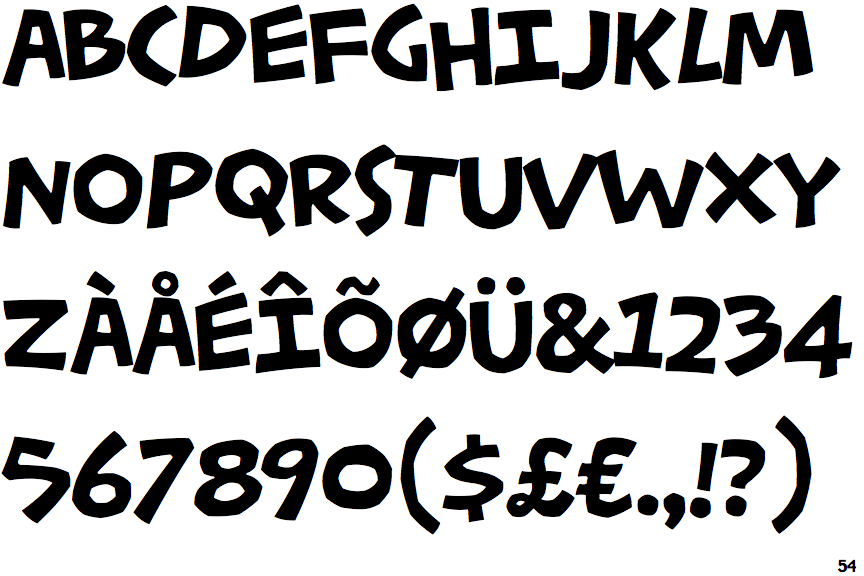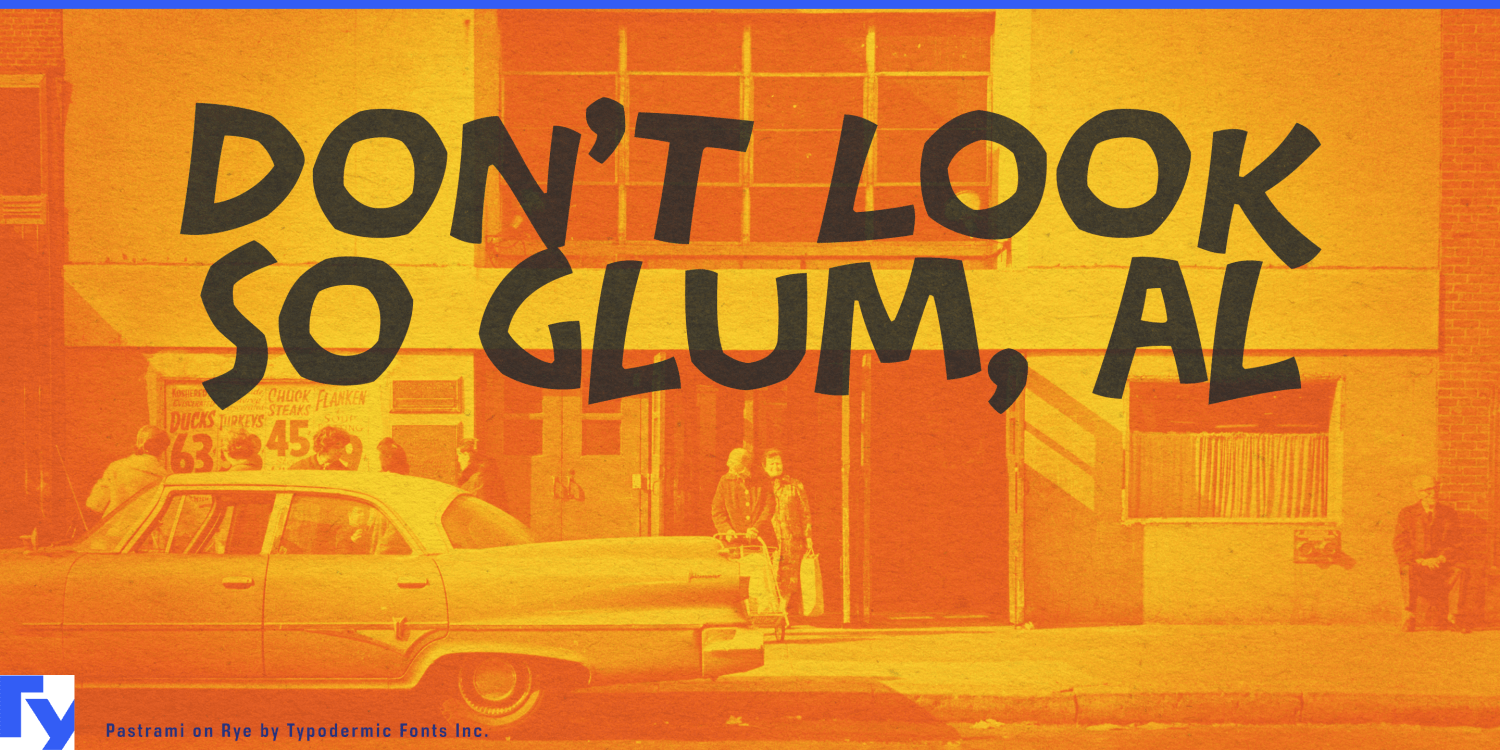
Pastrami On Rye Font . Pastrami on rye font familie wurde entworfen von ray larabie und herausgegeben von typodermic. The pastramion rye regular font was designed by ray larabie. Information about the font pastrami on rye from typodermic, and where to download it. Thousands of designers (famous or not) use the image font detection system to find a font or similar free fonts from an image. Pastrami on rye is a comic and kids font published by typodermic fonts inc. The author works at company ray larabie. Pastrami on rye otf (400) by typodermic. Pastrami on rye enthält 1 stile.
The author works at company ray larabie. Pastrami on rye enthält 1 stile. Information about the font pastrami on rye from typodermic, and where to download it. Pastrami on rye is a comic and kids font published by typodermic fonts inc. The pastramion rye regular font was designed by ray larabie. Pastrami on rye otf (400) by typodermic. Pastrami on rye font familie wurde entworfen von ray larabie und herausgegeben von typodermic. Thousands of designers (famous or not) use the image font detection system to find a font or similar free fonts from an image.
Pastrami On Rye Font Thousands of designers (famous or not) use the image font detection system to find a font or similar free fonts from an image. Pastrami on rye enthält 1 stile. The pastramion rye regular font was designed by ray larabie. Pastrami on rye otf (400) by typodermic. The author works at company ray larabie. Information about the font pastrami on rye from typodermic, and where to download it. Pastrami on rye font familie wurde entworfen von ray larabie und herausgegeben von typodermic. Thousands of designers (famous or not) use the image font detection system to find a font or similar free fonts from an image. Pastrami on rye is a comic and kids font published by typodermic fonts inc.
Fonts similar to Pastrami on Rye Pastrami On Rye Font The pastramion rye regular font was designed by ray larabie. Pastrami on rye font familie wurde entworfen von ray larabie und herausgegeben von typodermic. Thousands of designers (famous or not) use the image font detection system to find a font or similar free fonts from an image. Information about the font pastrami on rye from typodermic, and where to download. Pastrami On Rye Font.
Rye Font Pastrami On Rye Font Thousands of designers (famous or not) use the image font detection system to find a font or similar free fonts from an image. Pastrami on rye font familie wurde entworfen von ray larabie und herausgegeben von typodermic. Information about the font pastrami on rye from typodermic, and where to download it. Pastrami on rye enthält 1 stile. The pastramion rye. Pastrami On Rye Font.
Rye Font Nicole Fally FontSpace Pastrami On Rye Font Pastrami on rye enthält 1 stile. Pastrami on rye font familie wurde entworfen von ray larabie und herausgegeben von typodermic. Pastrami on rye is a comic and kids font published by typodermic fonts inc. The pastramion rye regular font was designed by ray larabie. Pastrami on rye otf (400) by typodermic. Information about the font pastrami on rye from typodermic,. Pastrami On Rye Font.
Pastrami on Rye Font Family by Typodermic Font Bros Pastrami On Rye Font Pastrami on rye is a comic and kids font published by typodermic fonts inc. Thousands of designers (famous or not) use the image font detection system to find a font or similar free fonts from an image. Pastrami on rye font familie wurde entworfen von ray larabie und herausgegeben von typodermic. Pastrami on rye enthält 1 stile. The author works. Pastrami On Rye Font.
Pastrami on Rye The Fresh Loaf Pastrami On Rye Font Pastrami on rye enthält 1 stile. Thousands of designers (famous or not) use the image font detection system to find a font or similar free fonts from an image. Pastrami on rye is a comic and kids font published by typodermic fonts inc. Pastrami on rye otf (400) by typodermic. Information about the font pastrami on rye from typodermic, and. Pastrami On Rye Font.
Best pastrami on rye ever from 2nd ave Recetas Pastrami On Rye Font Pastrami on rye font familie wurde entworfen von ray larabie und herausgegeben von typodermic. Thousands of designers (famous or not) use the image font detection system to find a font or similar free fonts from an image. Pastrami on rye is a comic and kids font published by typodermic fonts inc. Pastrami on rye otf (400) by typodermic. The pastramion. Pastrami On Rye Font.
Pastrami on Rye PastramiSandwich Rezept Küchengötter Pastrami On Rye Font The author works at company ray larabie. Thousands of designers (famous or not) use the image font detection system to find a font or similar free fonts from an image. Information about the font pastrami on rye from typodermic, and where to download it. The pastramion rye regular font was designed by ray larabie. Pastrami on rye enthält 1 stile.. Pastrami On Rye Font.